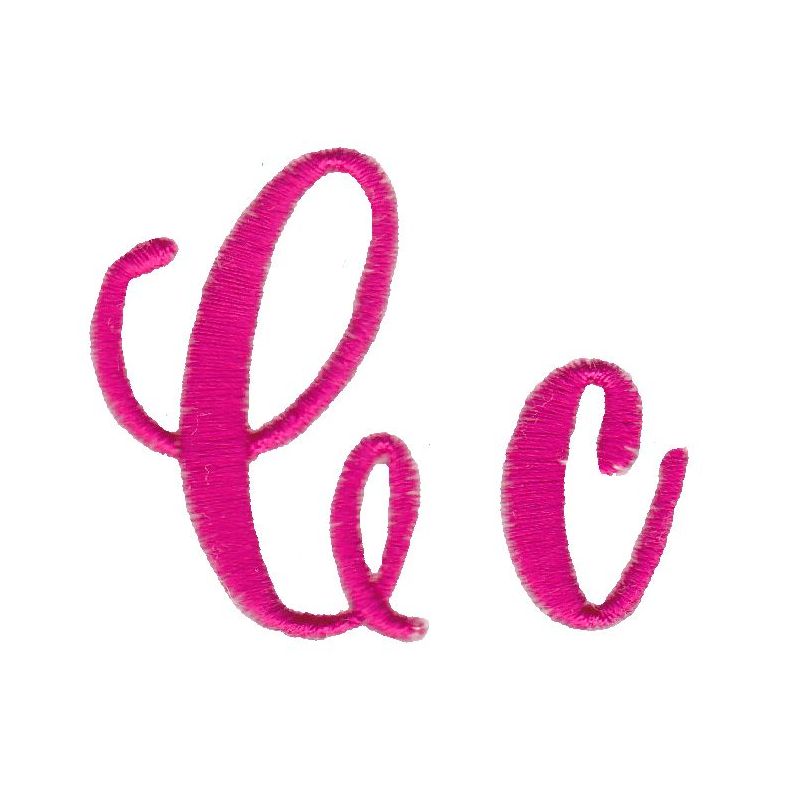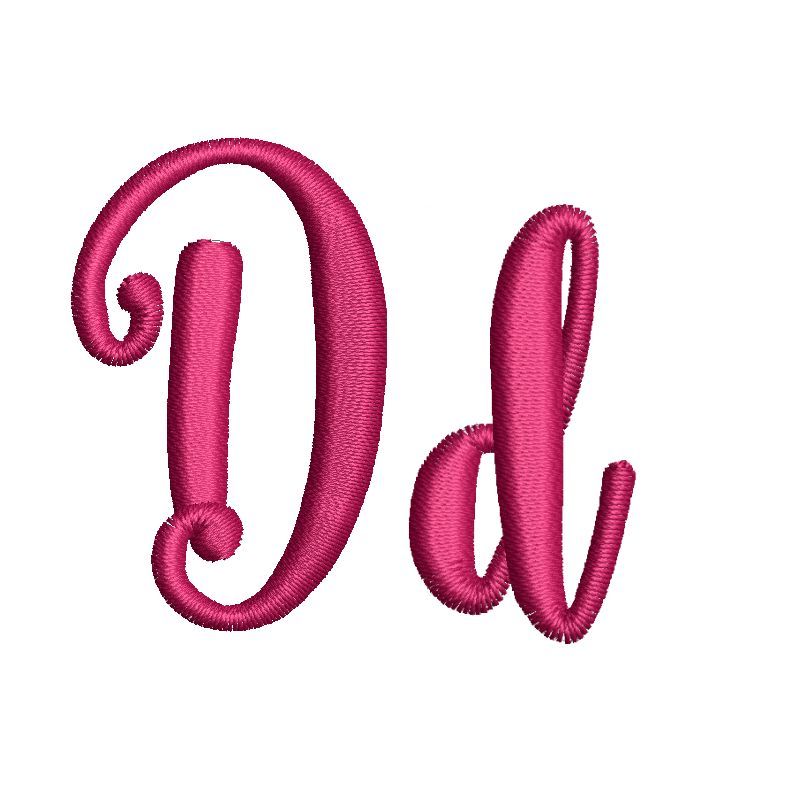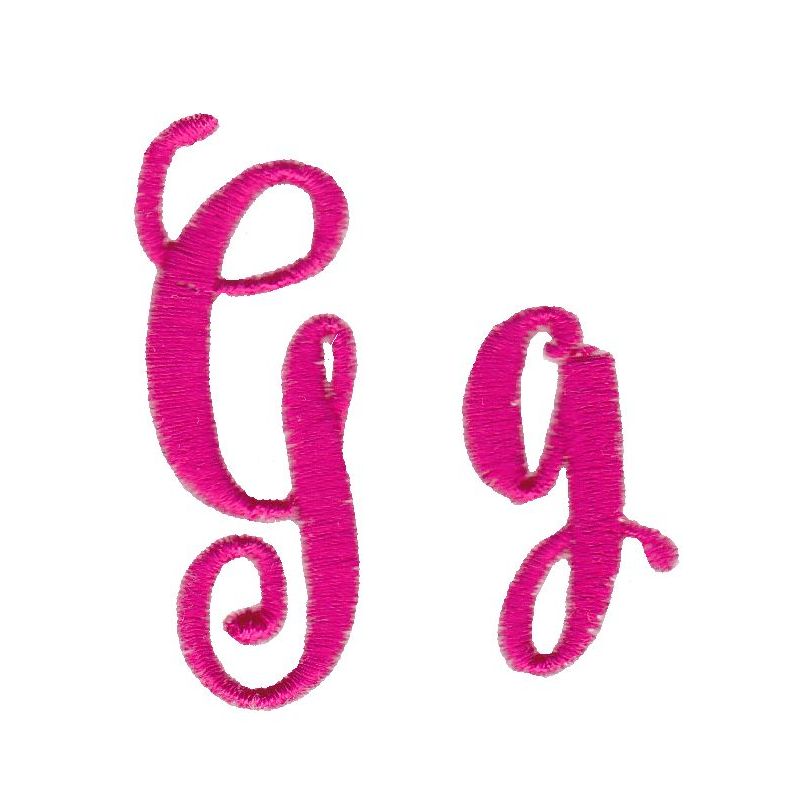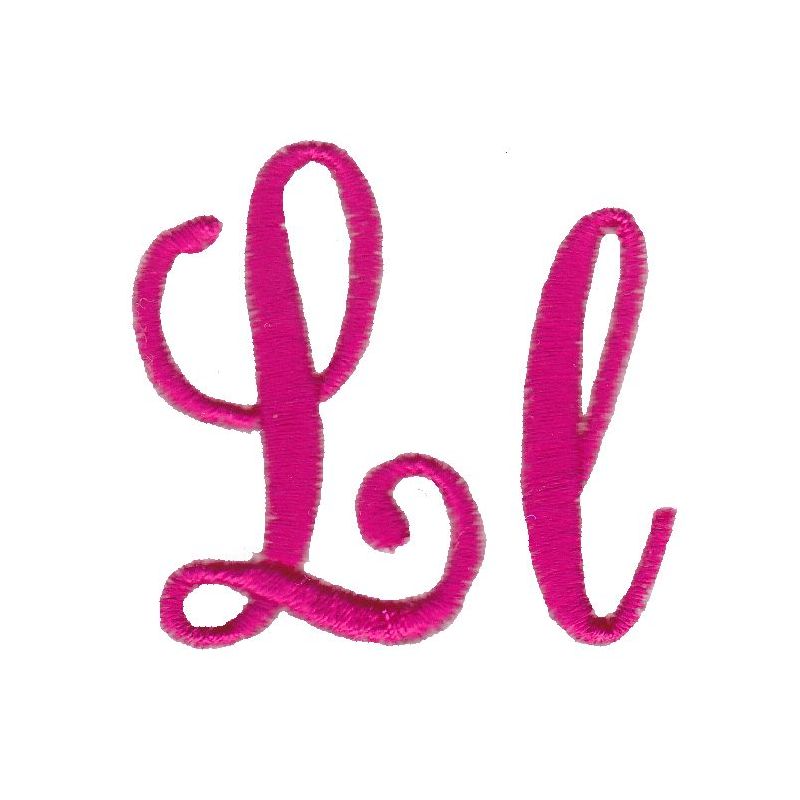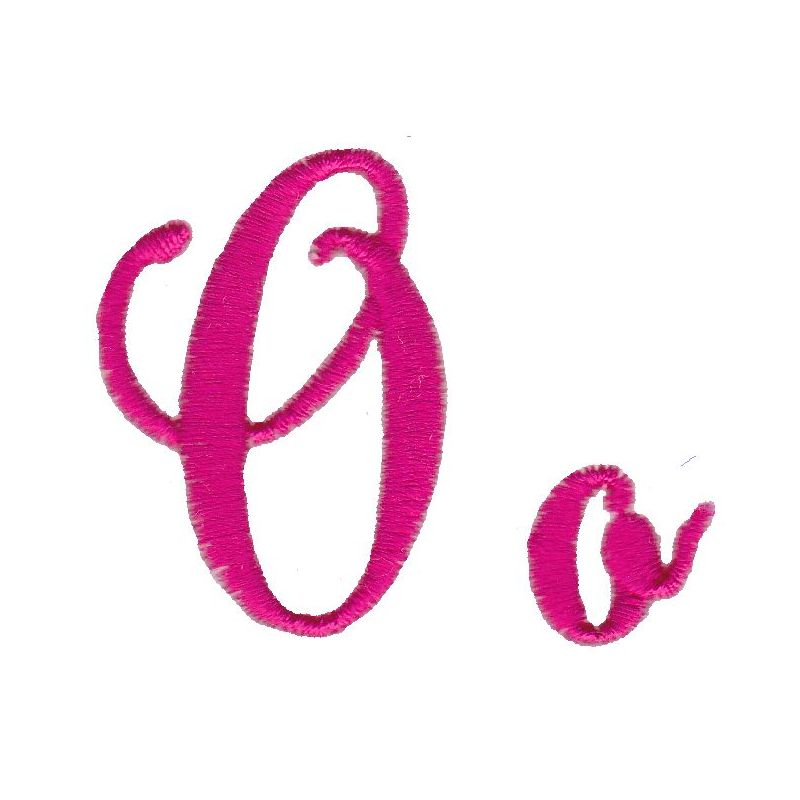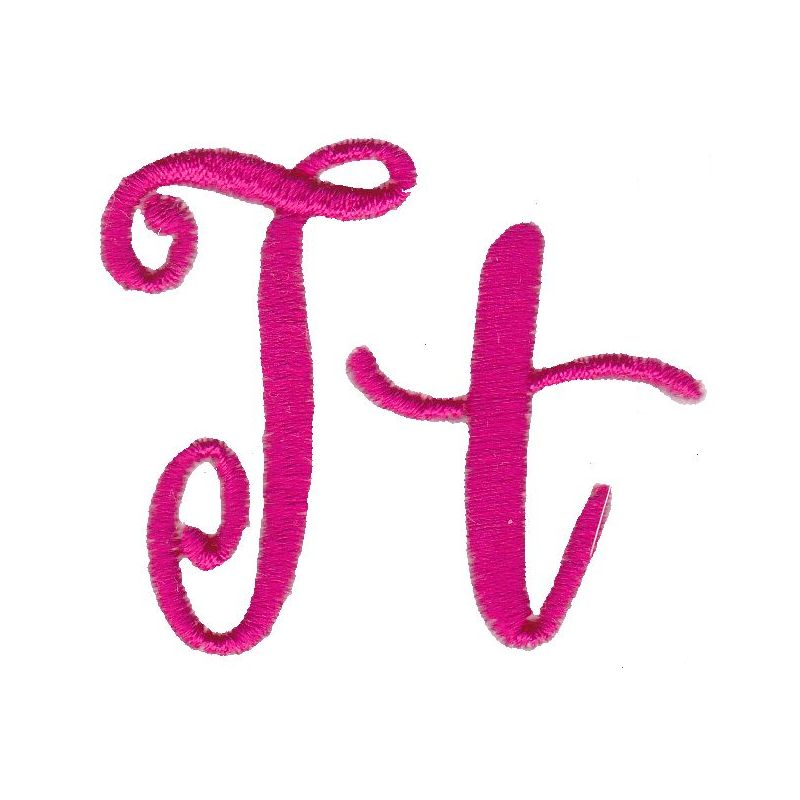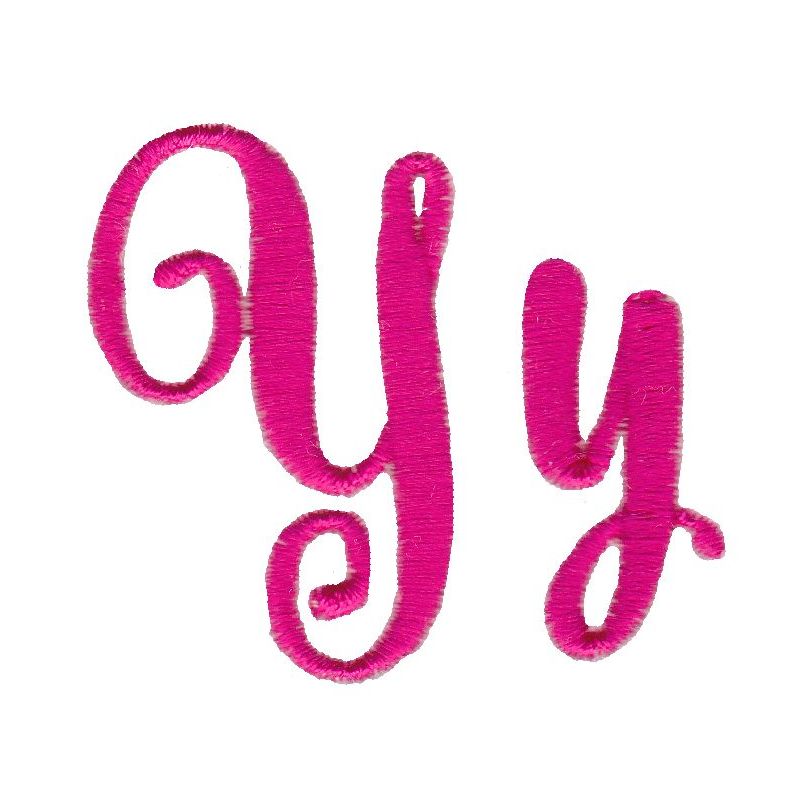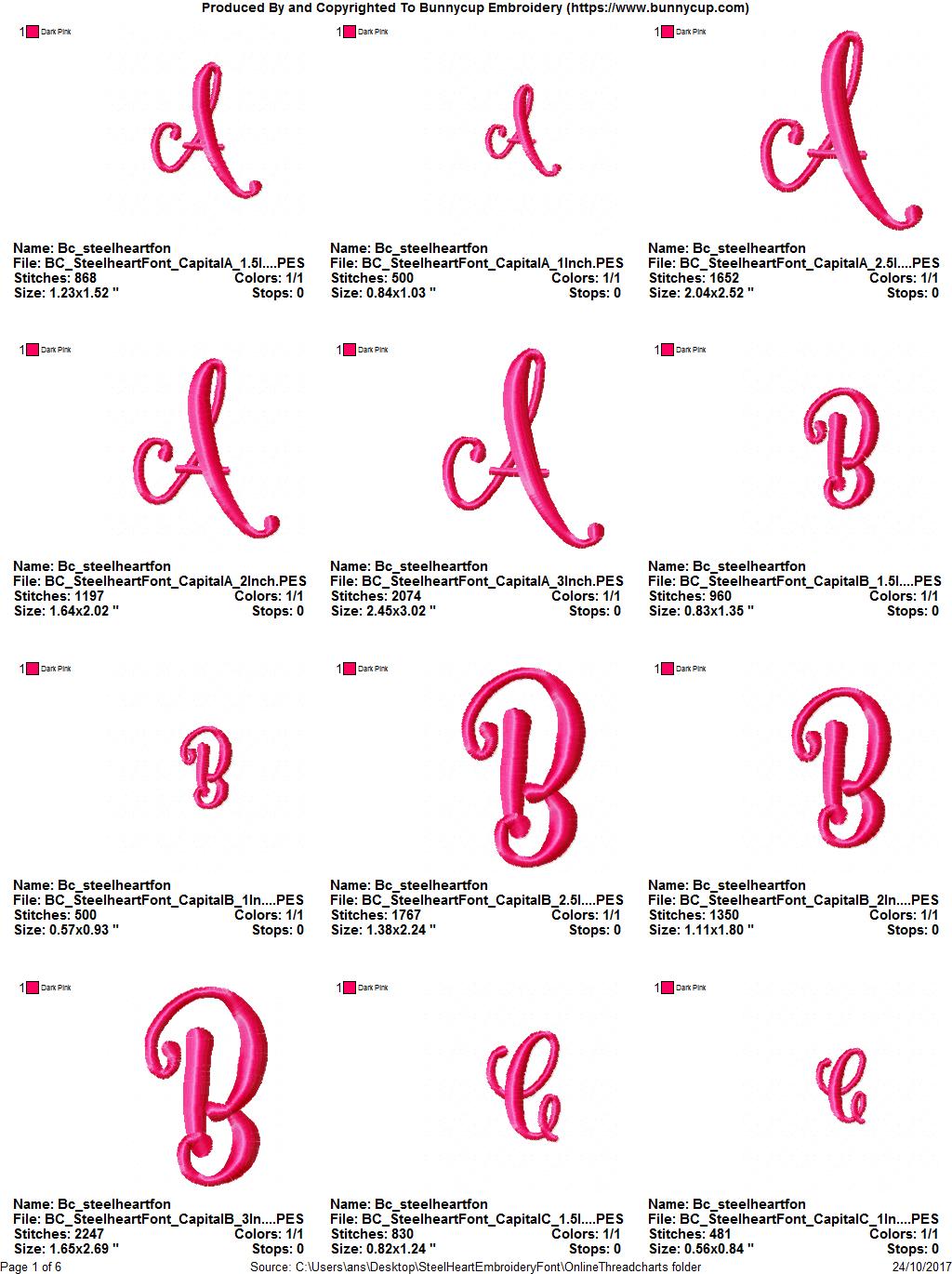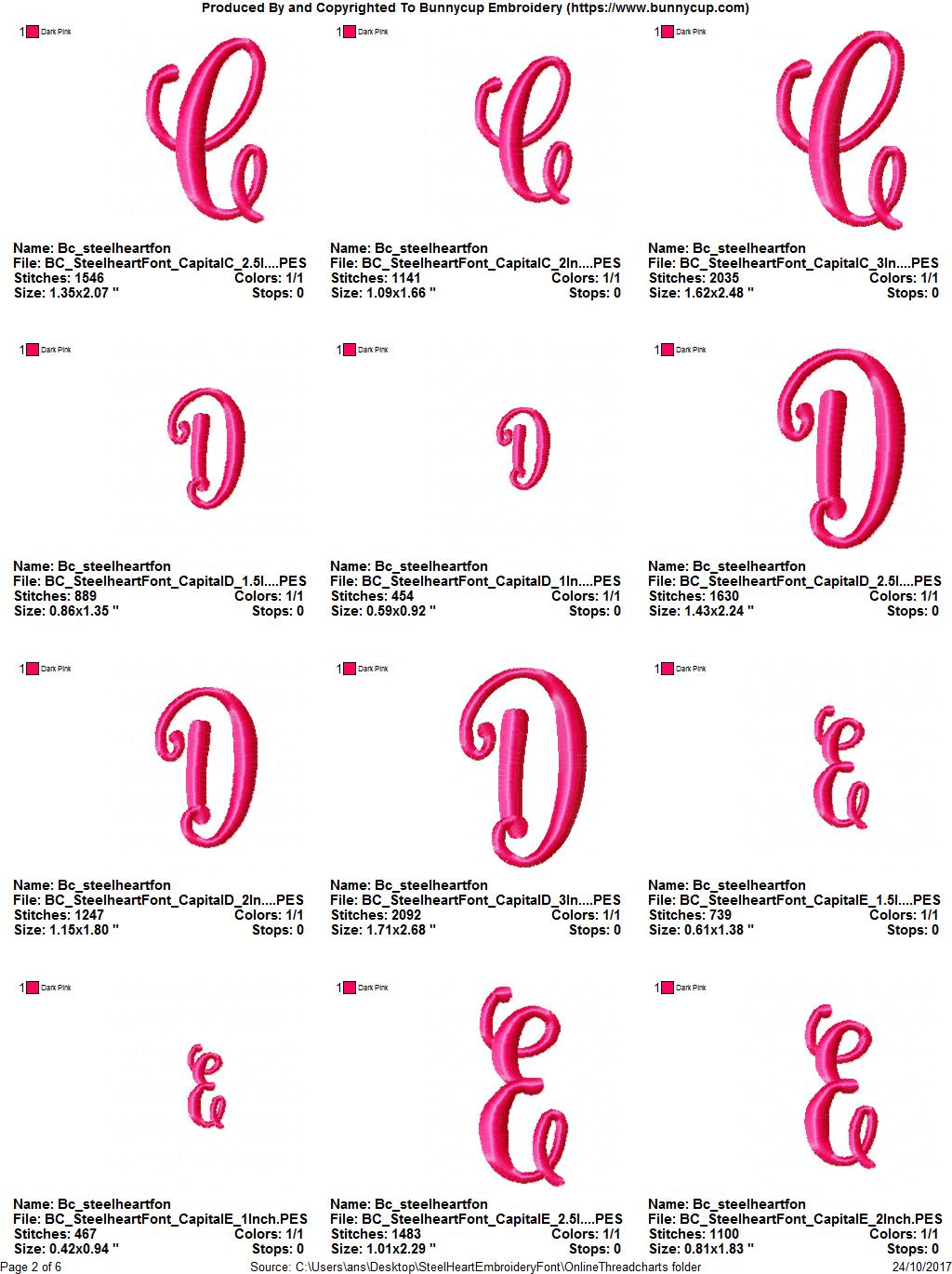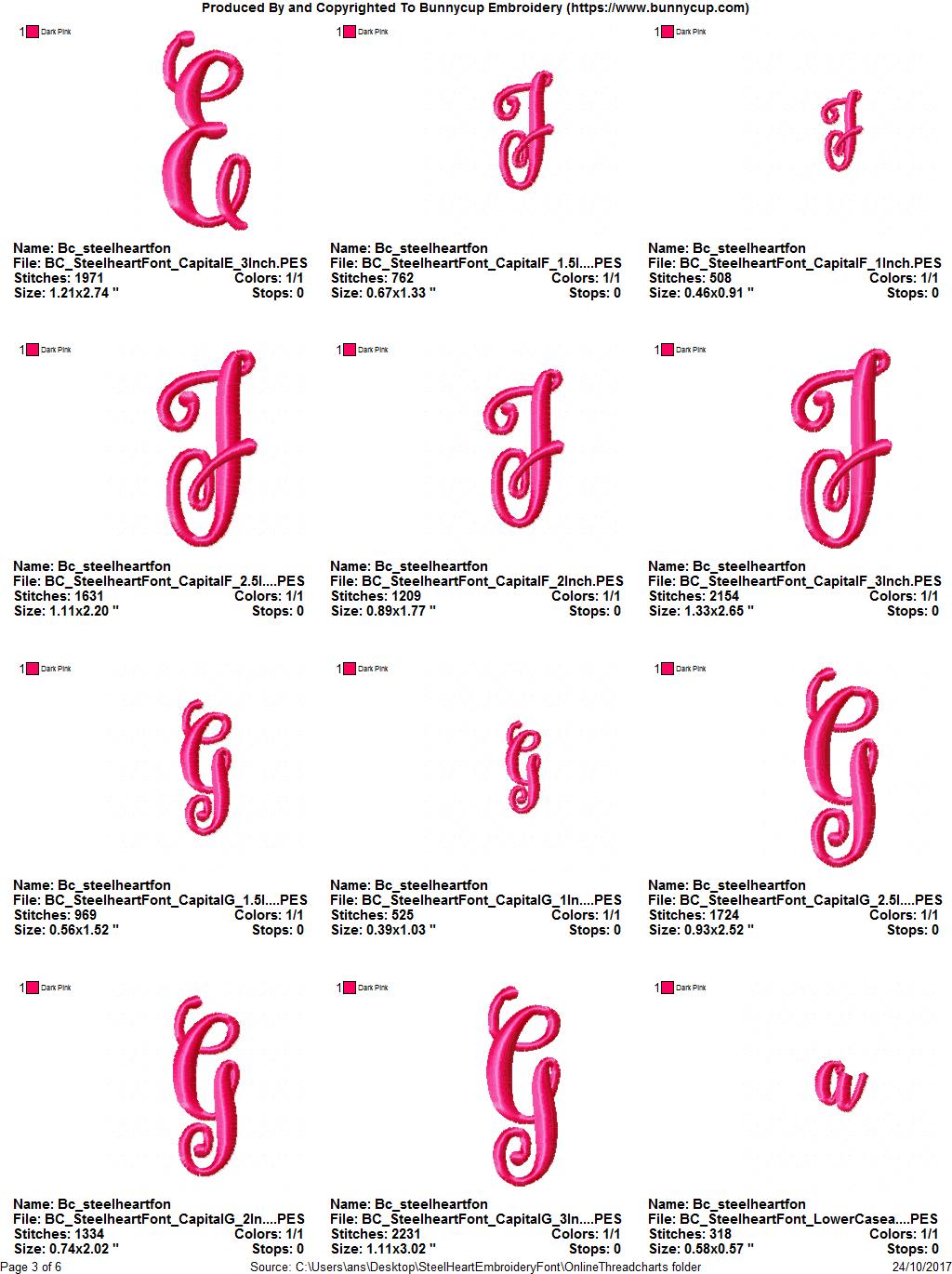
Steelheart Embroidery Font
Steelheart Embroidery Font is a gorgeous font that comes in 5 great sizes - 1 Inch, 1.5 Inches, 2 Inches, 2.5 Inches and 3 Inches. The font includes Capitals, Lower Case, Characters and Numbers as displayed. This is the same font used in our Pantry Labels collection and has been well sought after! Wilcom EMB files are also included in the downloads for precise resizing with the Wilcom Truesizer software (a free resizing software available at the Wilcom website). BX files are also included for use with the Embrilliance software when purchasing the full alphabet set. See our full range of